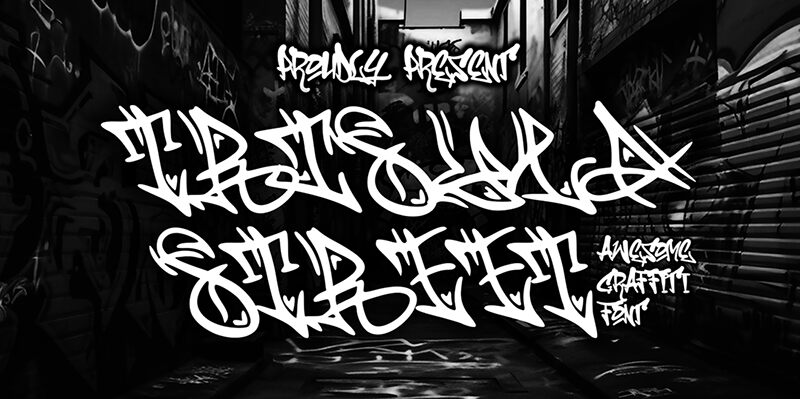
Trisula Street Graffiti font by Cikareotype Studio is expressive, intricate, and ornamental. Featuring a graffiti-inspired style and an urban aesthetic, the free display font evokes a rebellious mood. The letters display whirls and loops easily distinguishable yet complex enough to offer balance to each design file.
The download resource fits branding and conceptual designs along with graffiti art, mural paintings, logotypes, titles, posters or photography display projects. It might fit packaging projects as well when used in a proper context that suits its personality.